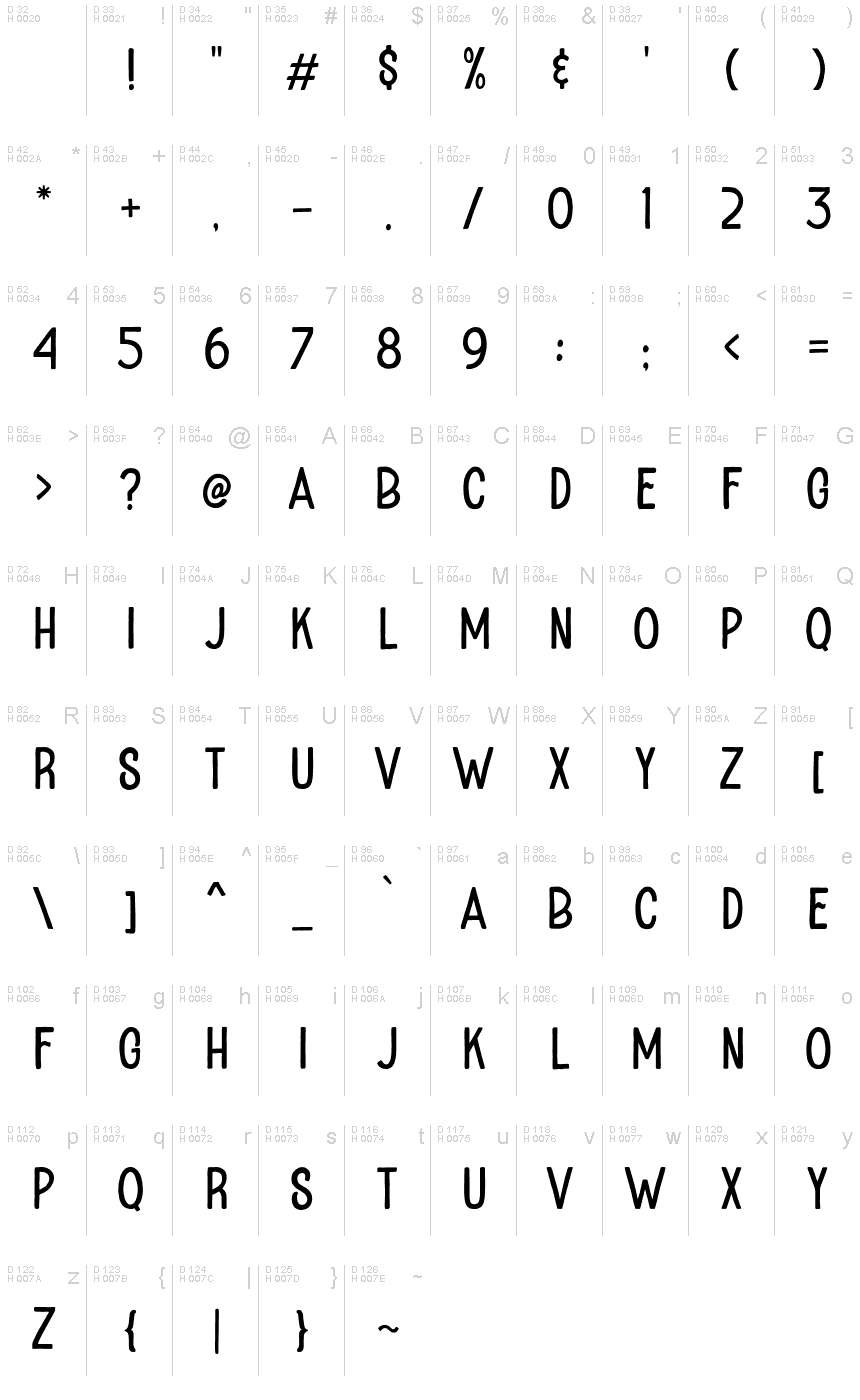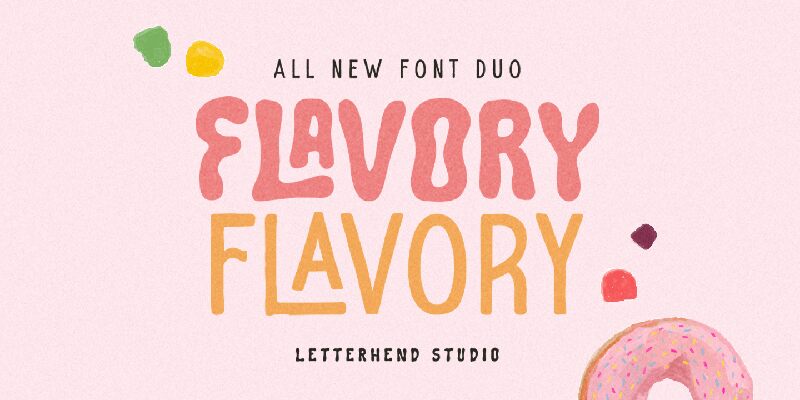
FlavorySansDemo
Flavory Sans by Letterhend Studio is a captivating display font that merges modernity with elegance. With its semi-light weight and condensed width, this font exudes sophistication and versatility. Perfect for branding projects, Flavory Sans adds a touch of refinement to logos, packaging designs, and website headers. Its clean lines and sleek appearance make it equally suitable for fashion magazines, editorial layouts, and product catalogs. This font effortlessly captures attention while maintaining readability across various platforms. Let Flavory Sans elevate your creative endeavors with its distinct charm and refined aesthetics.